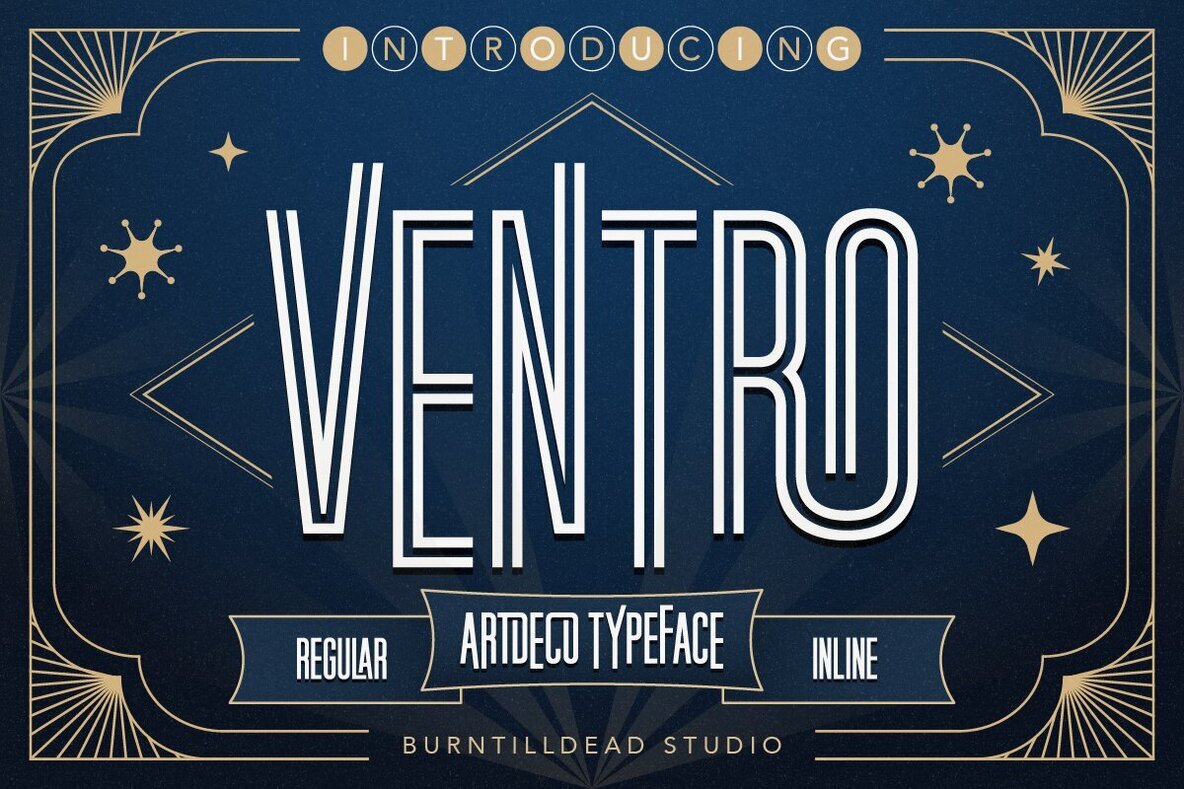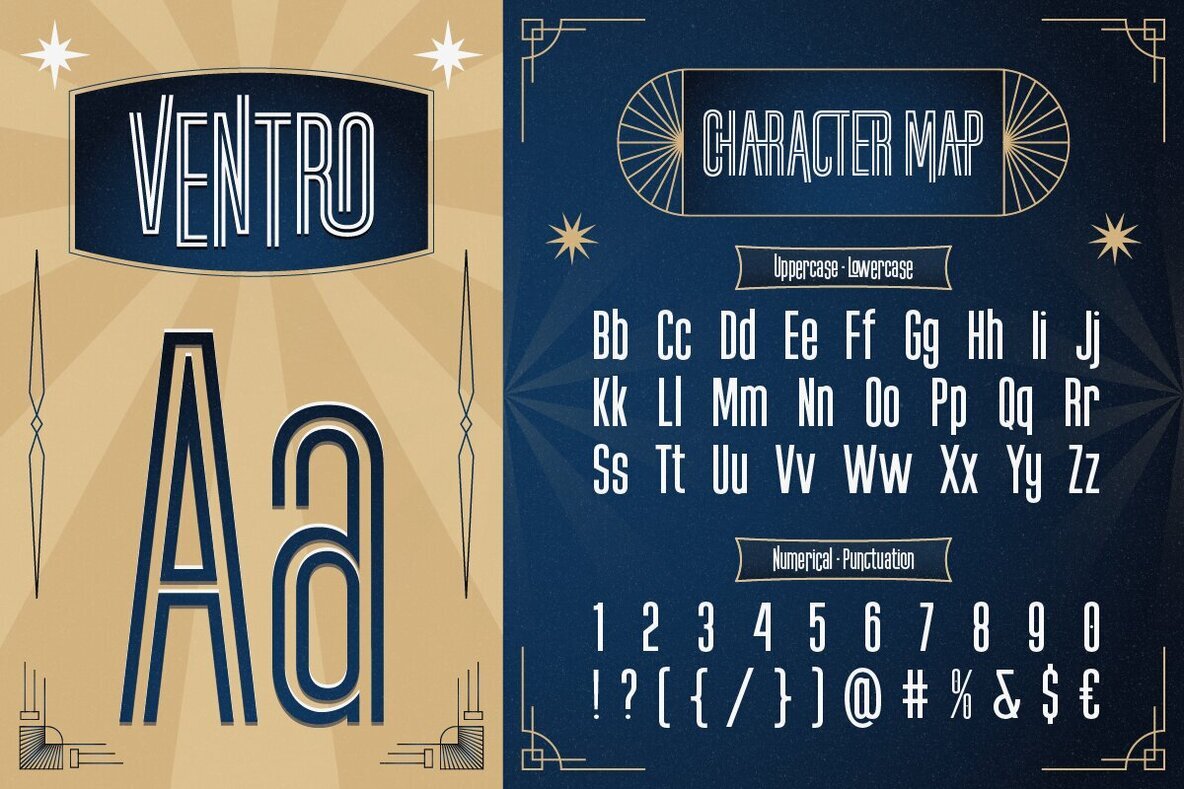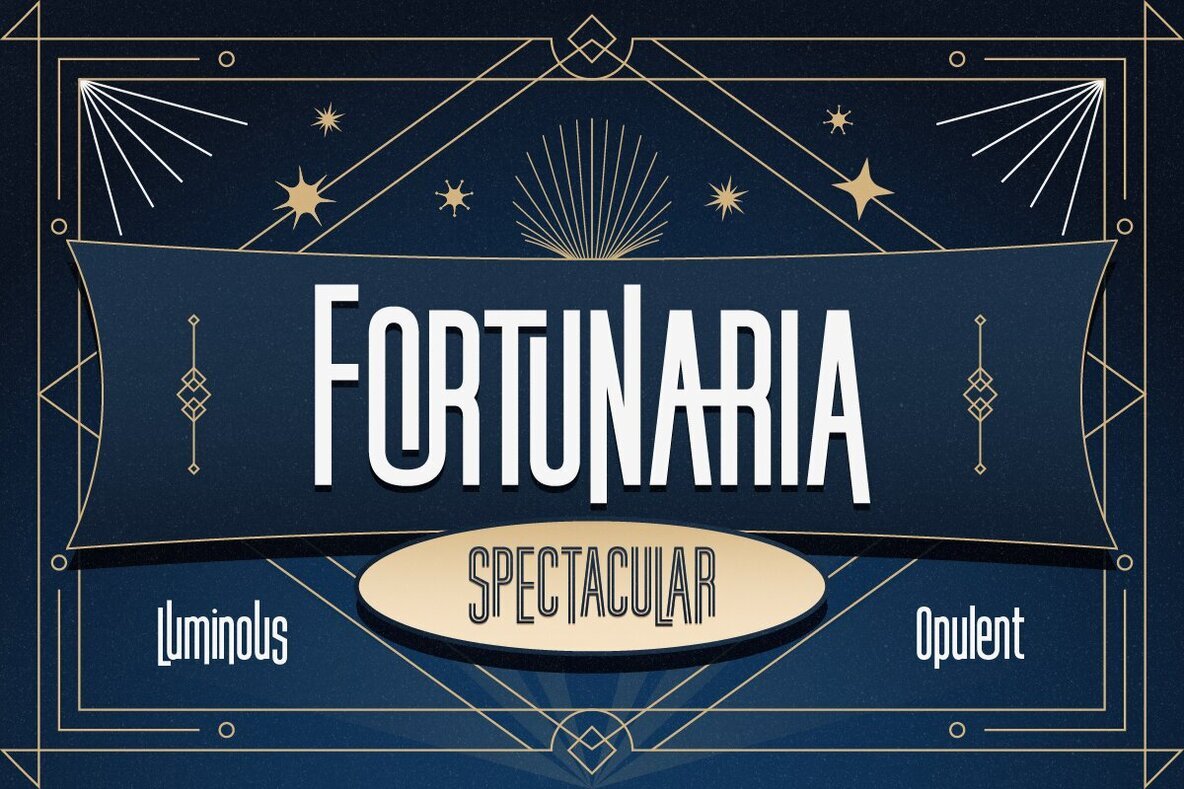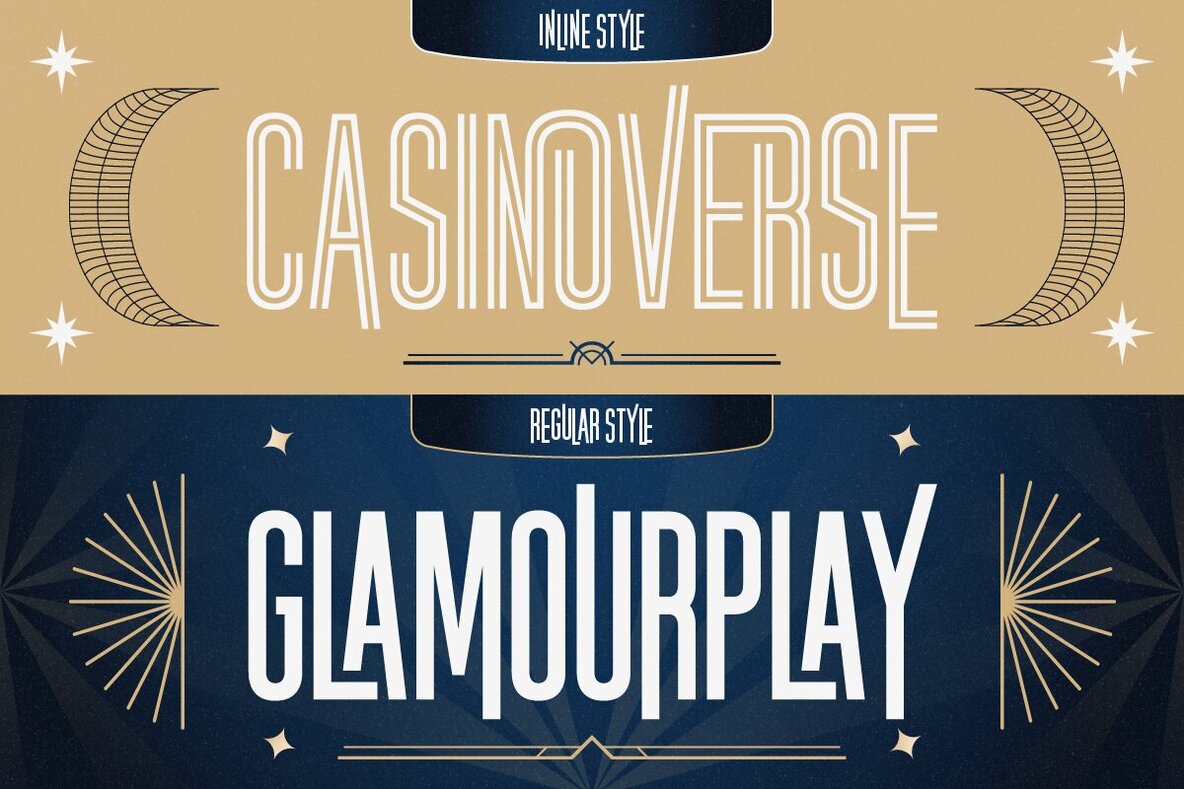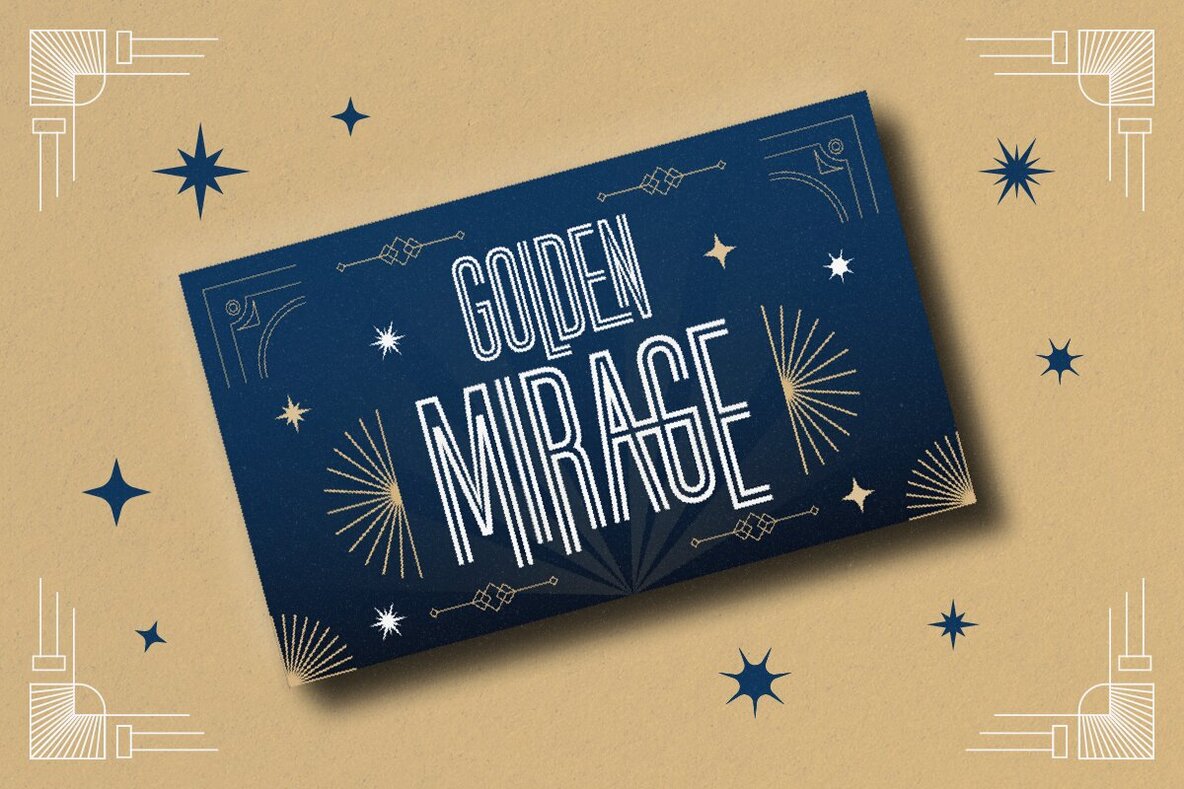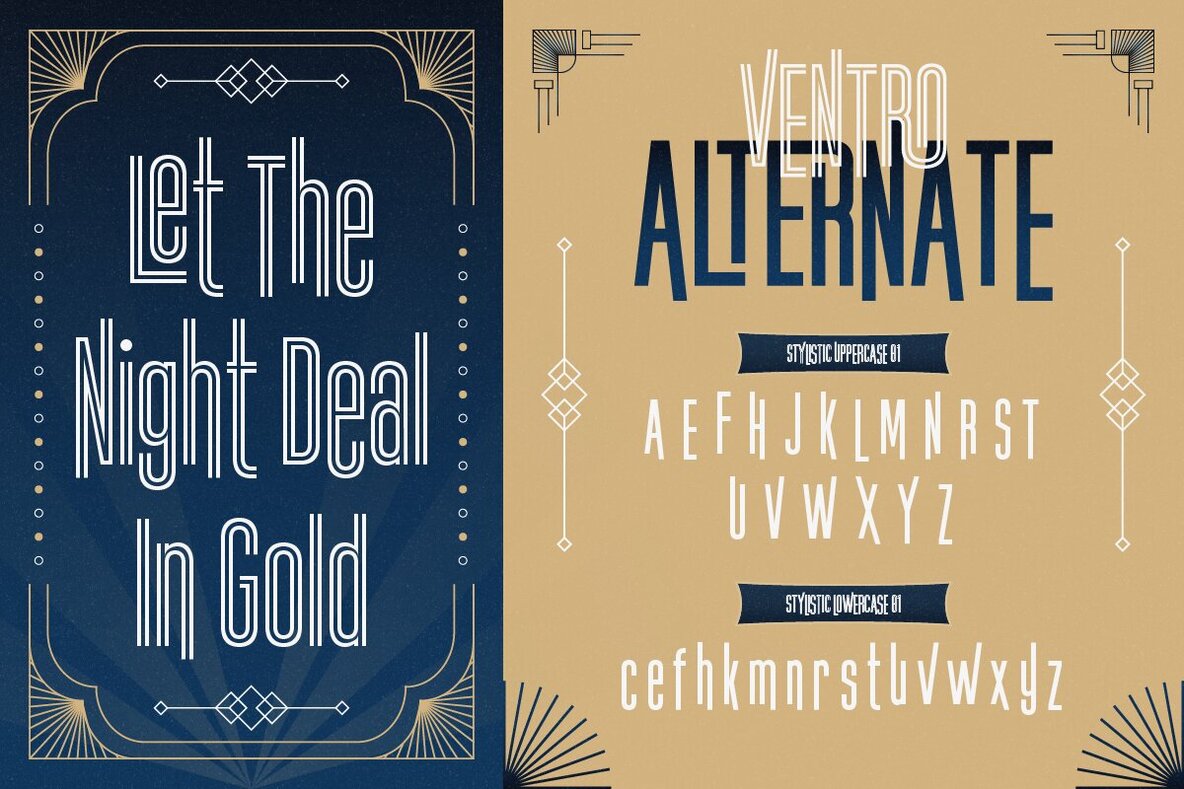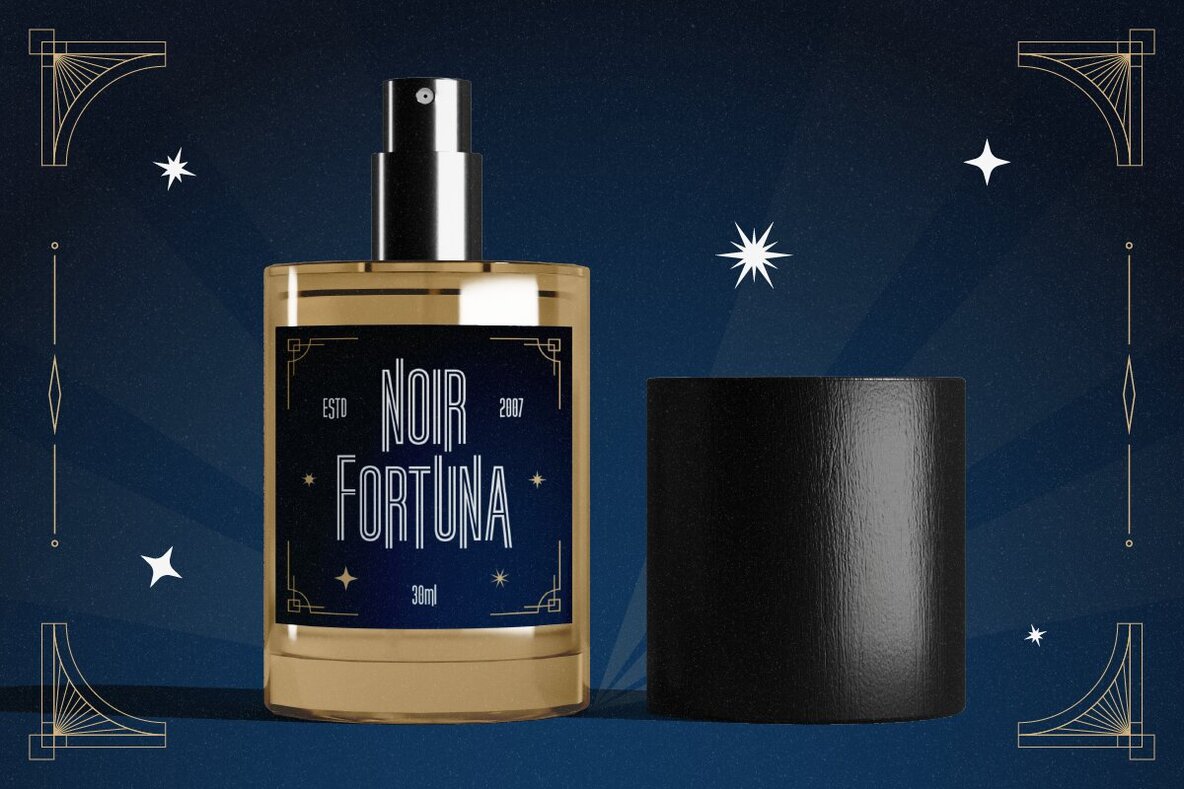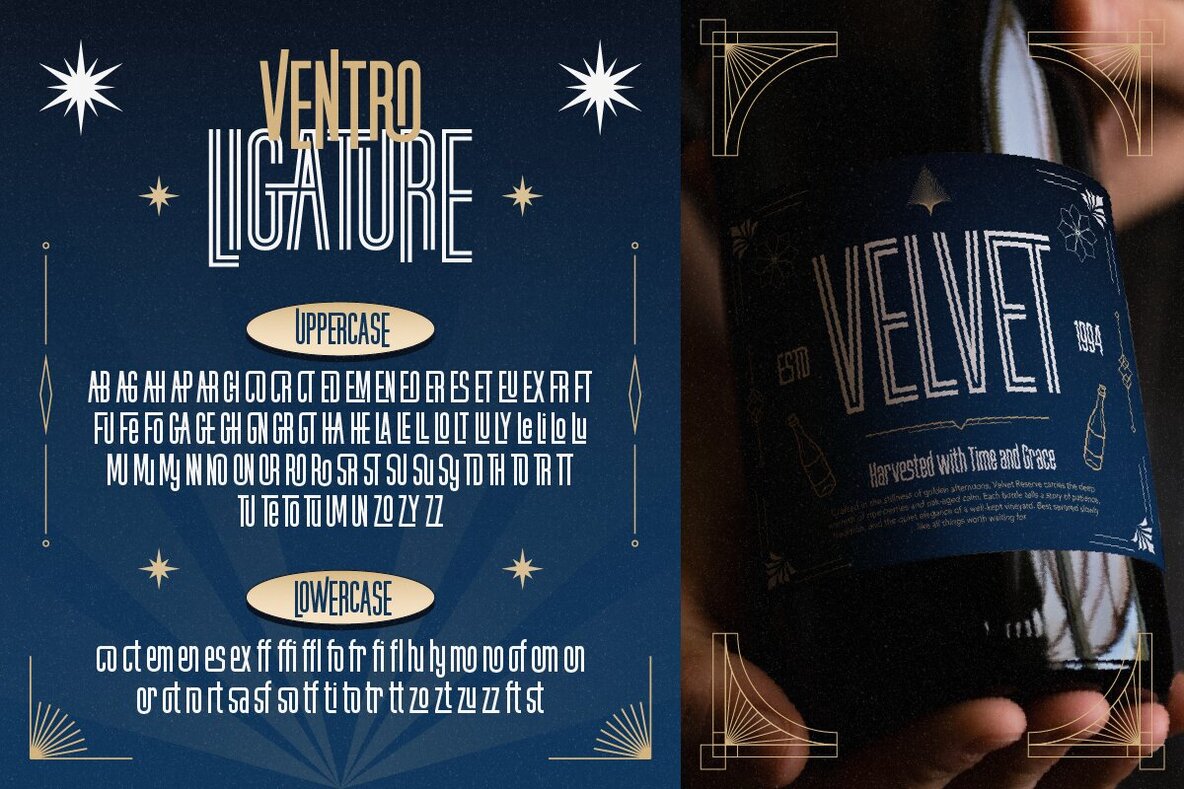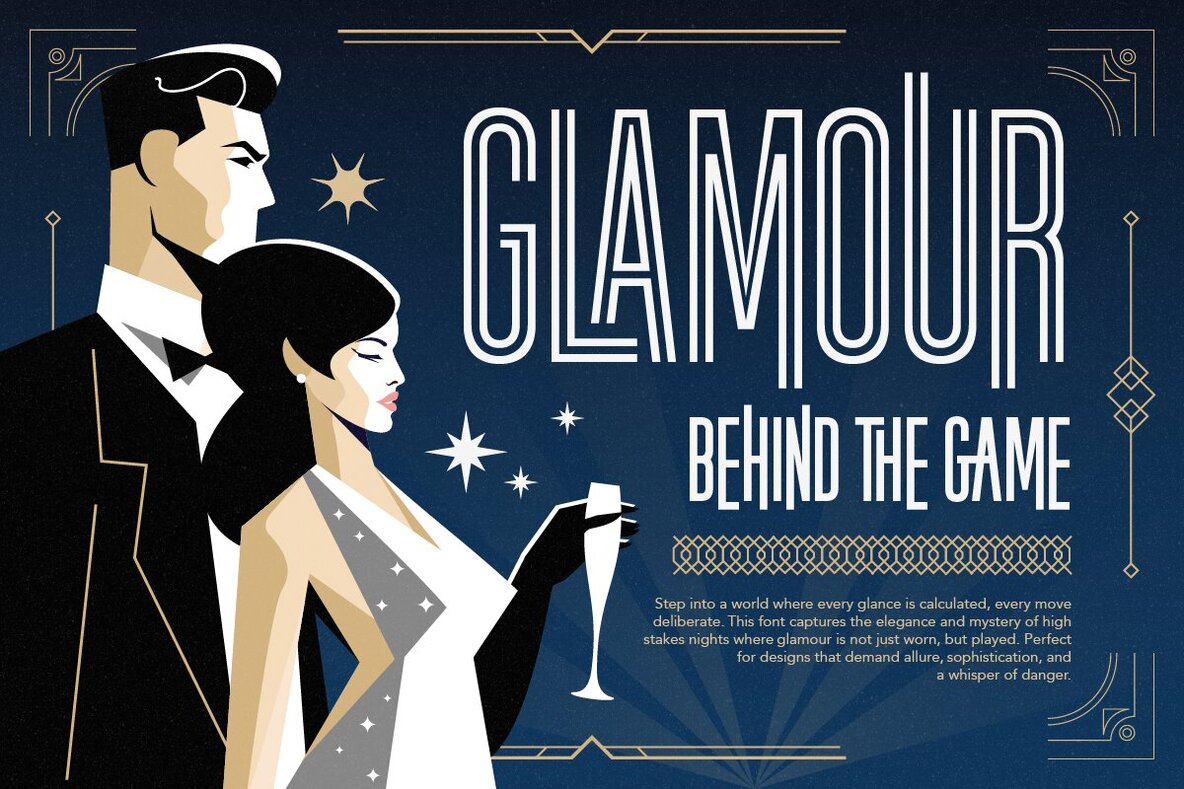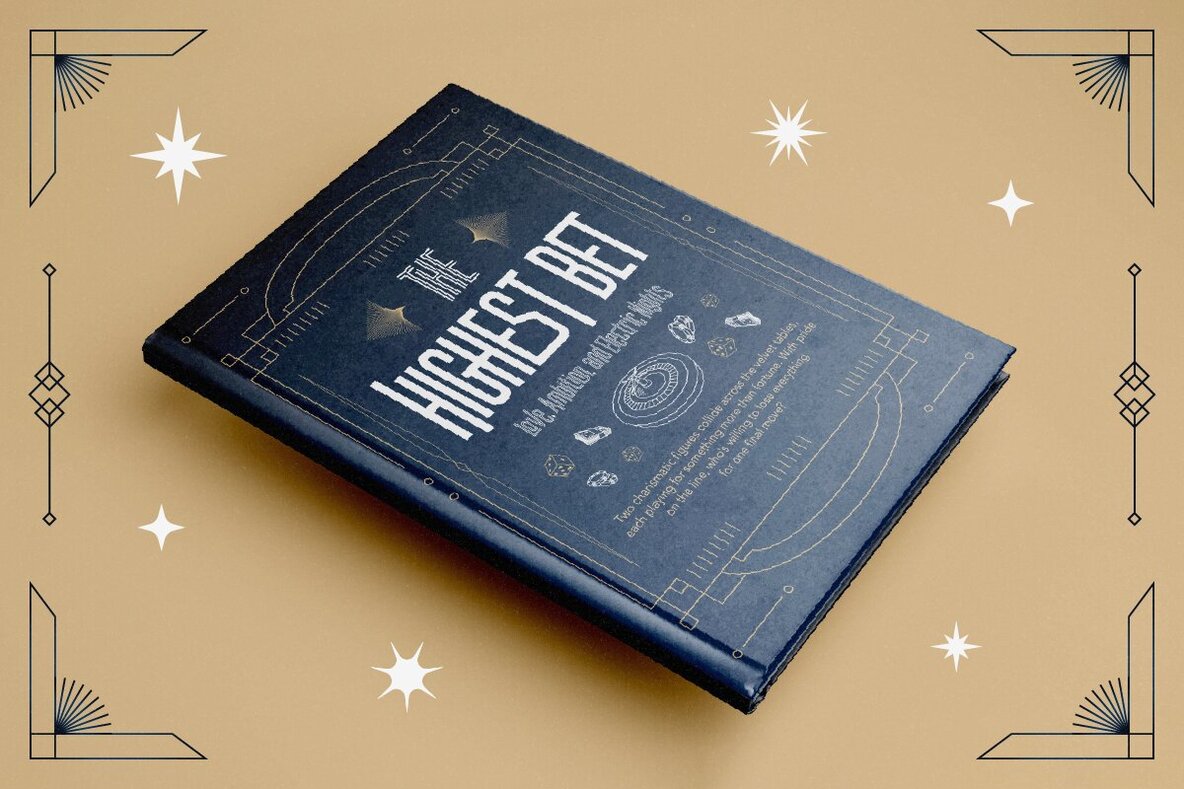
Ventro Font
Ventro Regular
Ventro Inline
Introducing Ventro, a captivating Art Deco-inspired font that seamlessly marries the opulent allure of the 1920s with a contemporary edge. This versatile typeface is available in two distinctive styles: Regular and Inline. Whether you’re designing movie titles, vintage café logos, event posters, or retro sci-fi themes, Ventro's bold and striking presence adds a timeless quality to your creations.Ventro: Art Deco Elegance with a Modern Twist